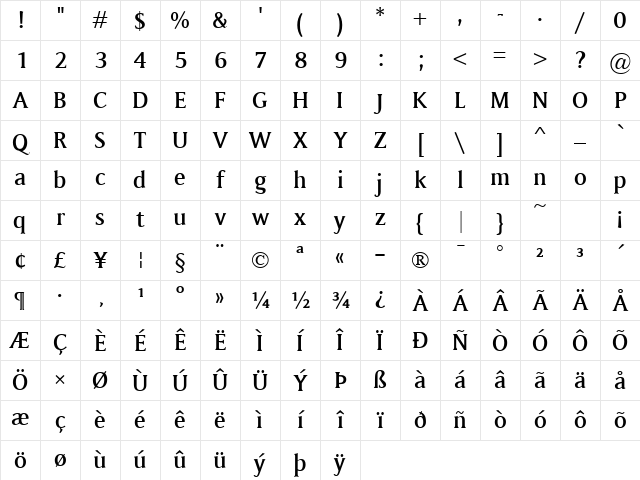
Memento SemiBold Regular Free Font
Memento SemiBold Regular
Design Context for Memento SemiBold
Memento SemiBold is a composed and adaptable typeface that performs quietly and consistently across a wide range of design contexts. Its bold stroke weight gives it real presence on the page.